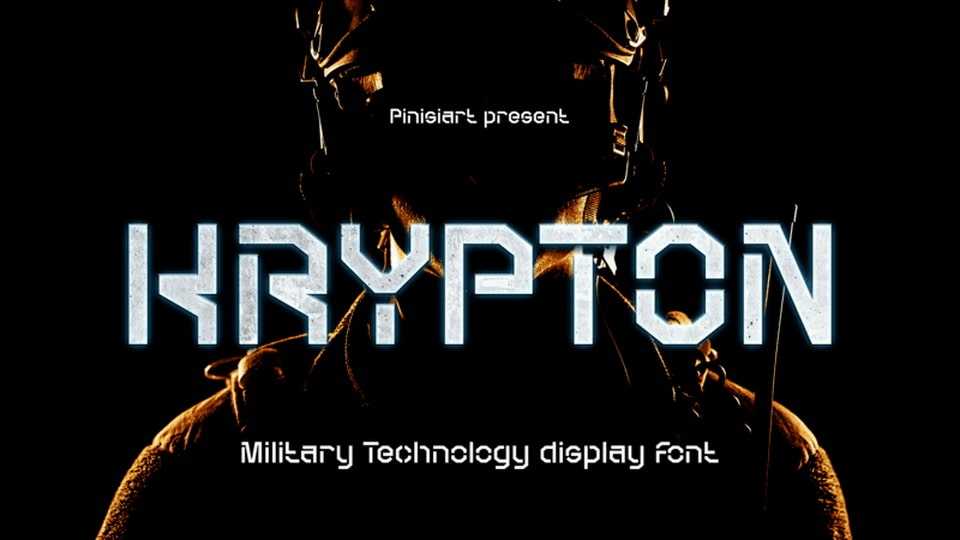
Download Krypton font, a military technology display typeface. Remember the name, it’s full of outer space, and high-end technology has written all over it.